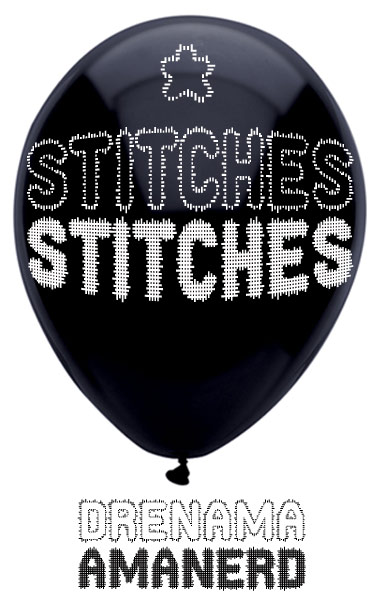
FS Drenama
bright twin of amanerd.
i like dark twins. and light ones two :)
Awesome. Twins are always nice. :)
A very clever way to get some nice curves, and we all love nice curves. :-)
great effect!
kinda remindes me of stitches
Another winner, kix! Looking forward to the dark twin!
Brilliant pair!